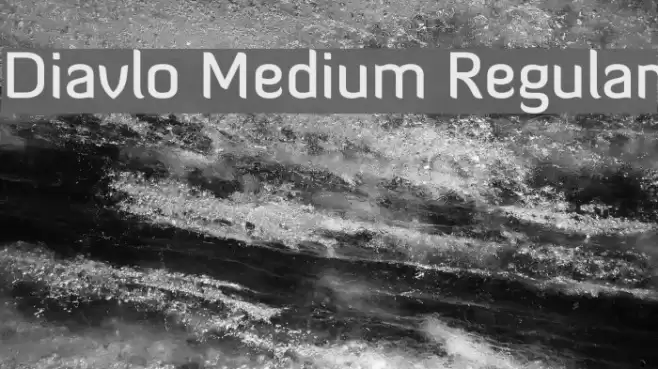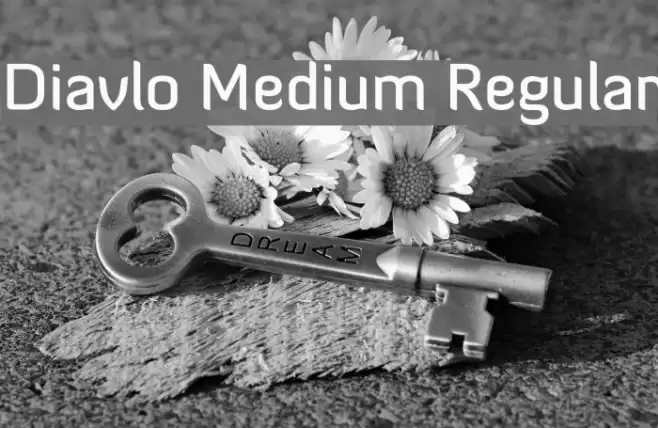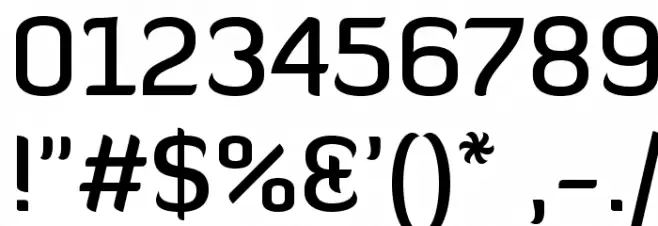
Diavlo Medium Regular
This font exhibits a modern and clean design with a slightly rounded geometric structure. The characters are well-proportioned, offering a balanced and harmonious appearance. The uppercase letters are bold and assertive, while the lowercase letters maintain a friendly and approachable feel. Numbers are clear and easy to read, making them suitable for various applications. The special characters are distinct and integrate seamlessly with the rest of the typeface. Overall, this font combines functionality with a contemporary aesthetic, making it versatile for both digital and print media.
A modern, geometric font with a clean and balanced design.
- Proposed Projects: Ideal for branding, advertising, web design, and editorial projects.